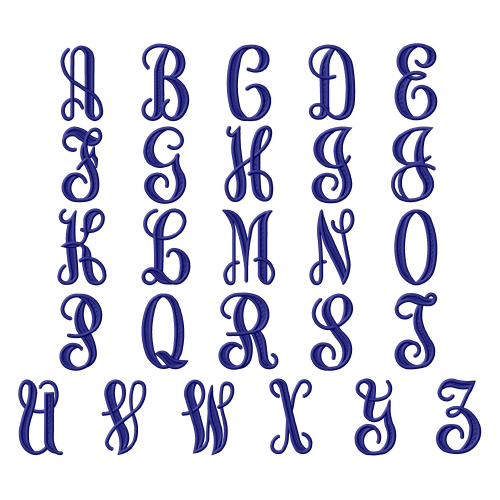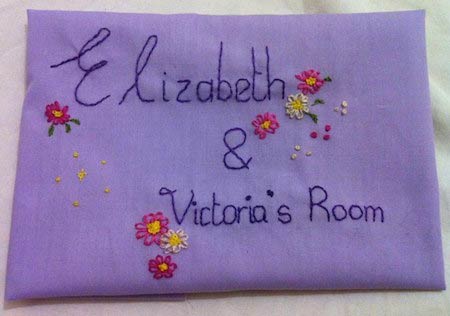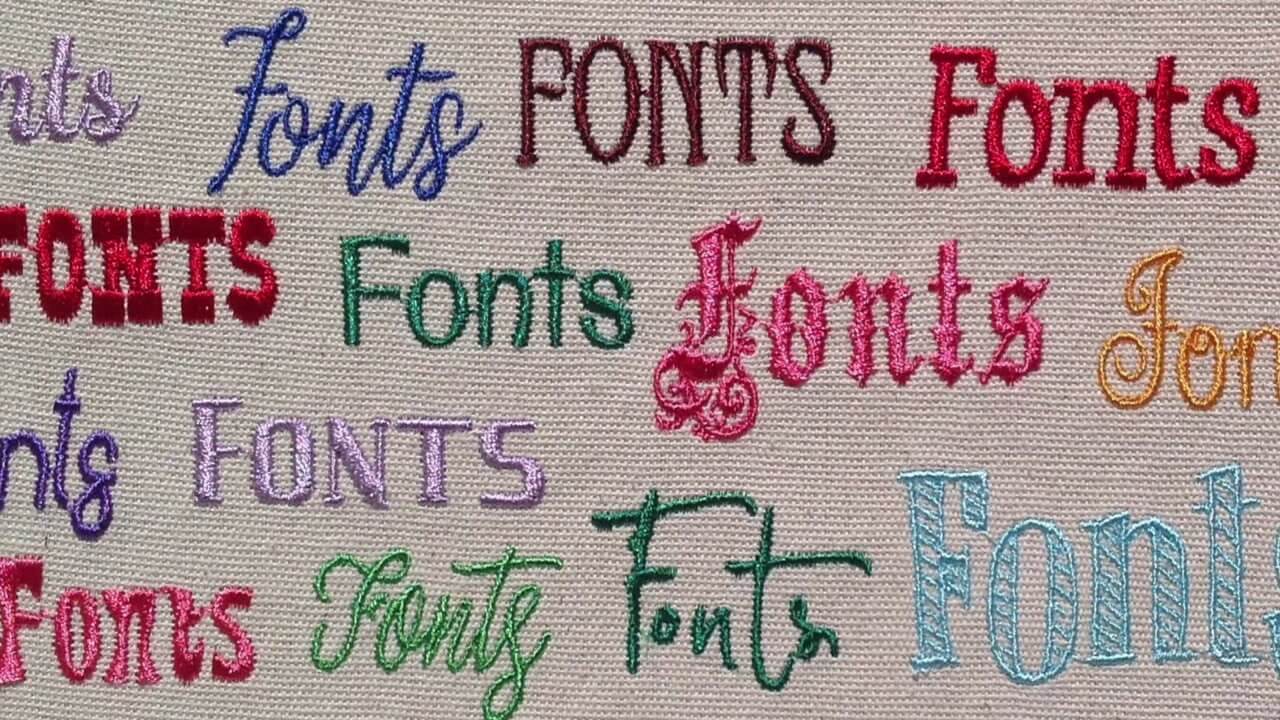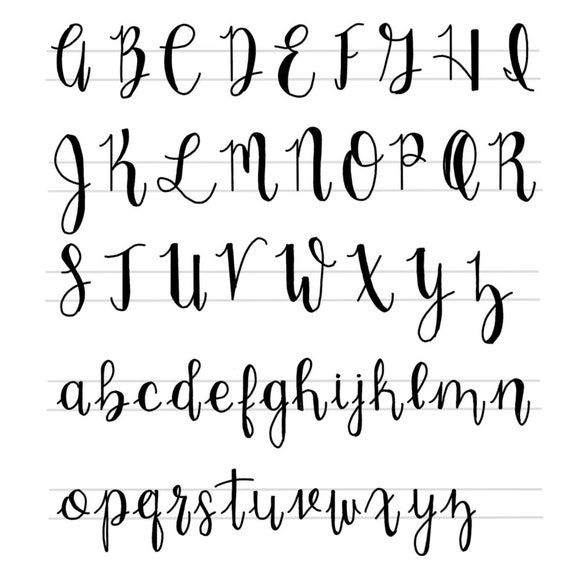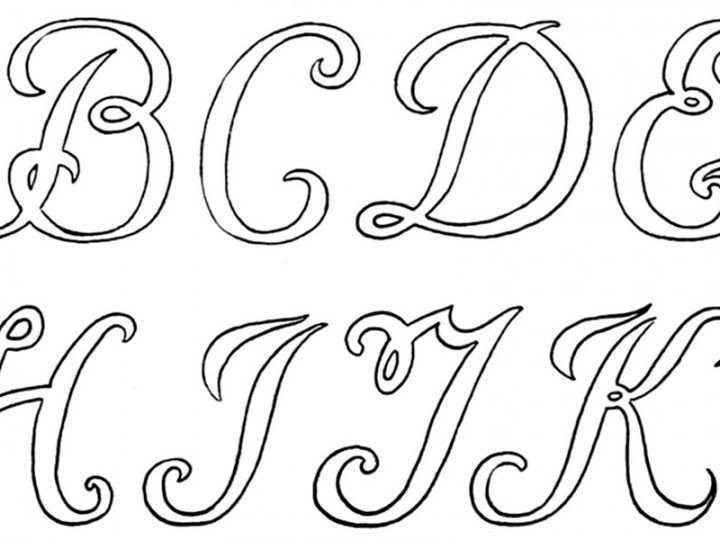
Find script fonts monogram fonts and fonts for cricut projects. The most common hand embroidery font material is cotton.
Lettering hand embroidery alphabet fonts. Here are some of the featured templates from our website. For this style I usually use 6 strands of floss for large letters. Alphabets Monograms Fonts.
All of the letters in this tutorial are stitched using four strands of DMC. I chose the word wander and a very basic font. See more ideas about embroidery letters lettering alphabet letters.
The unique alphabet consists of a documents containing every possible two-letter combination. To practice choose a word at least 5 or 6 letters long. I outline the thicker parts with a backstitch and fill them in with another row of backstitch.
You can use a word processing program to select a font print it out and transfer to your fabric or simply draw the letters by hand. Well youre in luck because here they come. You need to have an embroidery machine and knows how to transfer to your machine.
For fun you can whip using a different color to get fun striped lettering. The first method that I like to use is a backstitch. Did you scroll all this way to get facts about hand embroidery font.
Back Stitch Lettering. Also included in the purchase price is a set of matching scrolls and accents to add a decorative touch to your lettering projects. There are situations when each of these laid out options for creating embroidery text could be your best option.
May 4 2021 - This is a set of 26 digitized machine embroidery designs. Alphabets also allow embroiderers to have accessibility to specialized font styles such as a braided two-letter Victorian alphabet. This is a great method for script fonts that have thicker and thinner parts.